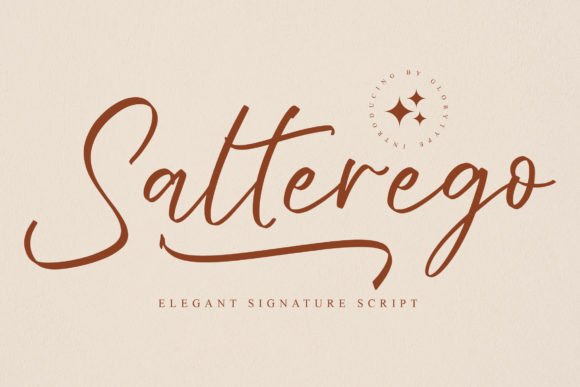
Unlock the captivating allure of Salterego, an exquisite script font that will elevate your projects to new heights of elegance and sophistication. Crafted by the renowned Glorytype Studio, Salterego has been hailed as the Best Font for Websites in 2015, and for good reason.
Indulge in its graceful curves and sweeping strokes, perfectly suited for logos that demand attention and branding projects that aspire to make a lasting impression. Unleash your creativity with homeware designs that exude charm, product packaging that captivates the eye, and mugs that bring a touch of whimsy to your morning routine.
With Salterego, your quotes will dance across the page with an air of timeless grace, while posters and shopping bags become vibrant canvases for your artistic expression. Transform t-shirts into wearable works of art, adorn book covers with an aura of intrigue, and craft name cards that leave an unforgettable mark.
Invitation cards and greeting cards penned in Salterego will convey your heartfelt messages with an elegance that resonates, while labels and photography will acquire a touch of sophistication that sets them apart. Watermarks infused with Salterego's charm will add a subtle yet impactful touch to your projects, ensuring they leave an indelible impression on all who encounter them.
Whether you're planning a special event or simply seeking to add a sprinkle of magic to your everyday designs, Salterego is the font that will make all the difference. Embrace its captivating allure and witness the transformation of your projects into works of art that inspire, enchant, and leave a lasting legacy of beauty.